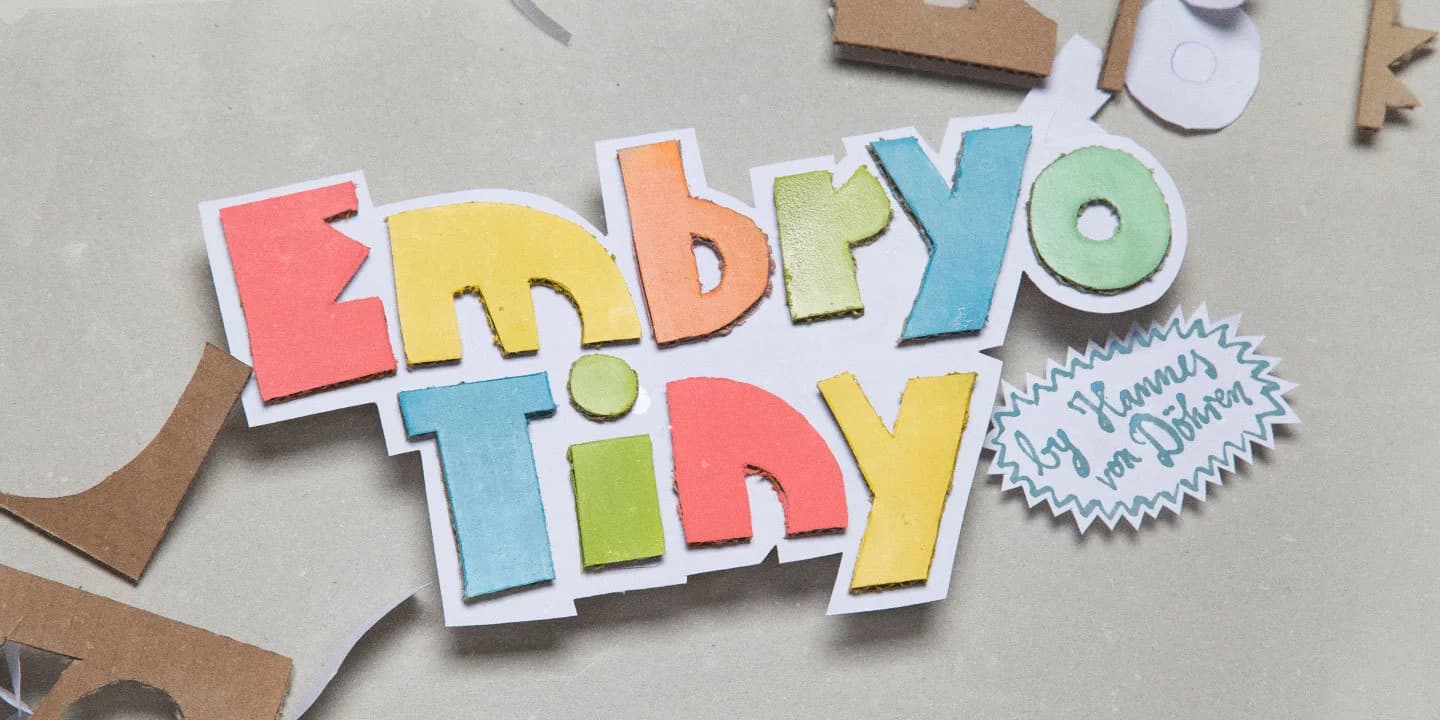
A display typeface from HvD Fonts with an expressive, experimental character.
Released by HvD Fonts, Embryo sits within the foundry's tradition of distinctive display designs. Details on weights, styles and language support could not be retrieved from the foundry's page. HvD Fonts is known for considered, well-crafted type across a range of styles.
The name and foundry context suggest a distinctive display-oriented sans, likely with expressive or experimental qualities typical of HvD's display releases.